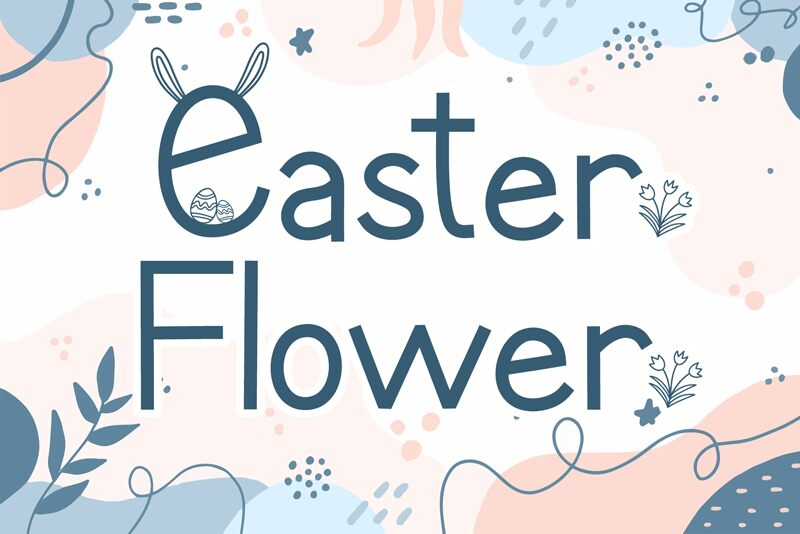
Easter Flower
Easter Flower font is a decorative approach to writing brought to you by AEN Creative Studio. The light font was inspired by the Easter holiday and flowers, and you’ll be able to spot these lovely modern icons with its use. And as all of its letters showcase a clean design, they’re both minimalistic and approachable.
What appears delicate cannot be used for both small and large texts including that of postcards, banners, packaging designs for birthdays or holidays like Easter, invitations for festive gatherings, etc. Decorate desktop wallpapers or apps backgrounds as well as branding designs where a floral touch would spice up the identity.